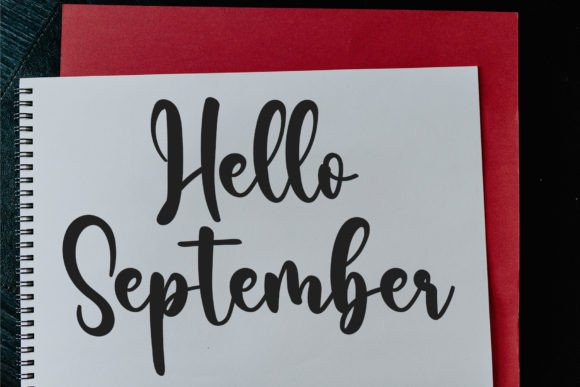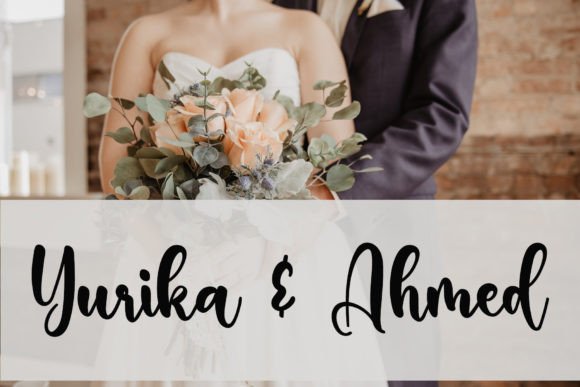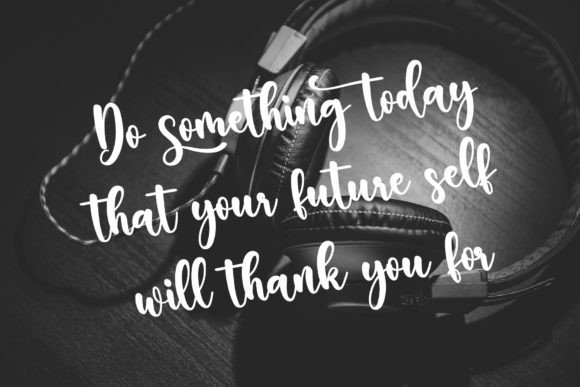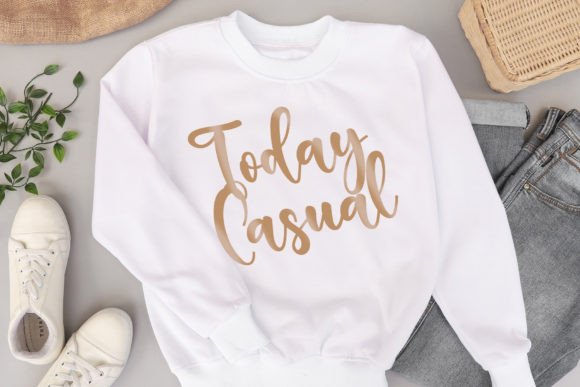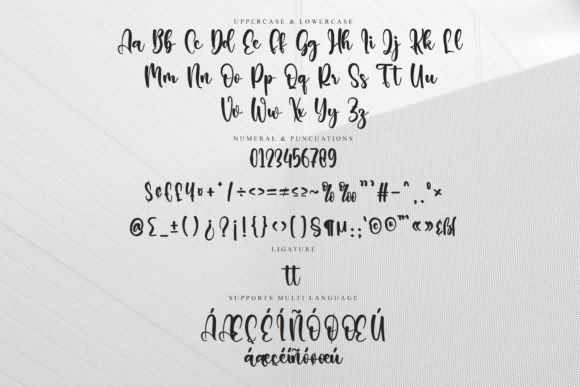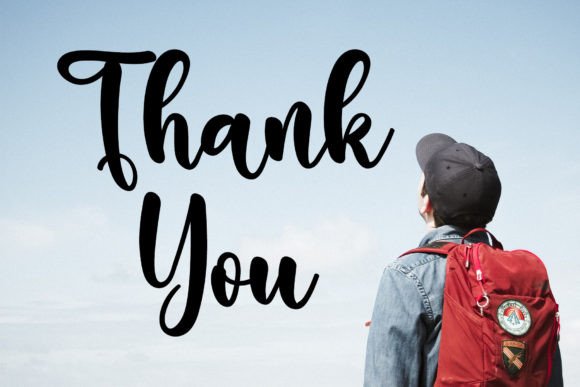
Introducing Absent Font: Elevate Your Designs with a Stylish and Modern Handwritten Touch
In the world of design, fonts play a crucial role in conveying the tone and personality of a project. Whether you’re working on a greeting card, headline, branding, or packaging, the right font can make all the difference. If you’re looking for a stylish and modern handwritten font that can add a touch of happiness to your creations, look no further than Absent Font.
What is Absent Font?
Absent Font is a beautiful, modern handwritten font that is suitable for a wide spectrum of applications. Its stylish and elegant design makes it perfect for adding a personal touch to your designs. With its unique and creative aesthetic, Absent Font is sure to make your projects stand out from the crowd.
Key Features of Absent Font
- Stylish and Modern Design: Absent Font boasts a stylish and modern design that is perfect for designers and crafters looking for a unique and creative font.
- Handwritten Style: The font features a beautiful handwritten style that adds a personal touch to your designs.
- PUA Encoded: Absent Font is PUA encoded, which means you can access all of the amazing glyphs and ligatures with ease.
- Wide Range of Applications: This font is suitable for a wide spectrum of applications, including greeting cards, headlines, branding, and packaging.
Benefits of Using Absent Font
Using Absent Font in your designs can bring a range of benefits, including:
- Unique and Creative Aesthetic: Absent Font’s unique and creative aesthetic will help your designs stand out from the crowd.
- Emotional Connection: The font’s handwritten style can help create an emotional connection with your audience, making your designs more relatable and engaging.
- Versatility: Absent Font is versatile and can be used in a wide range of applications, from digital designs to print materials.
- Use it for Headlines and Titles: Absent Font is perfect for headlines and titles, adding a touch of elegance and sophistication to your designs.